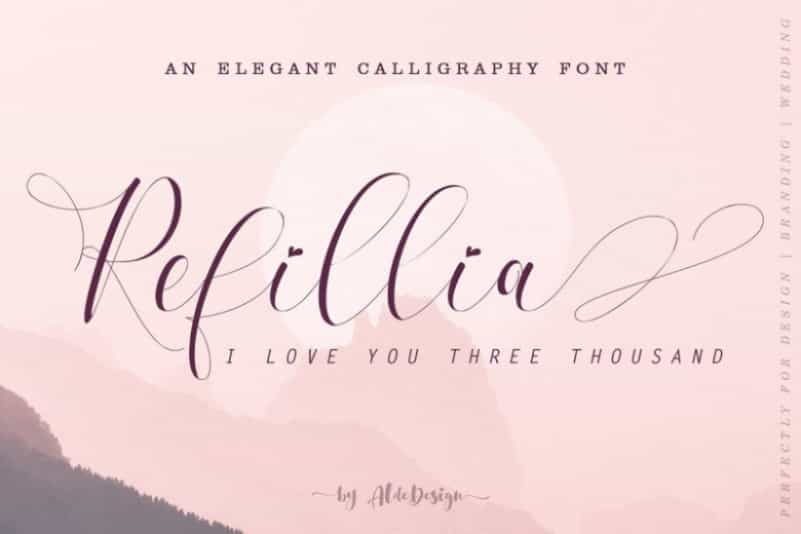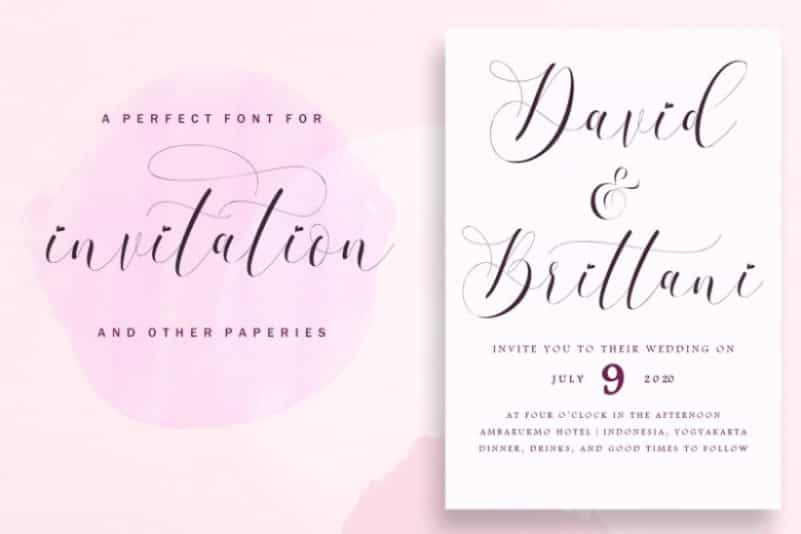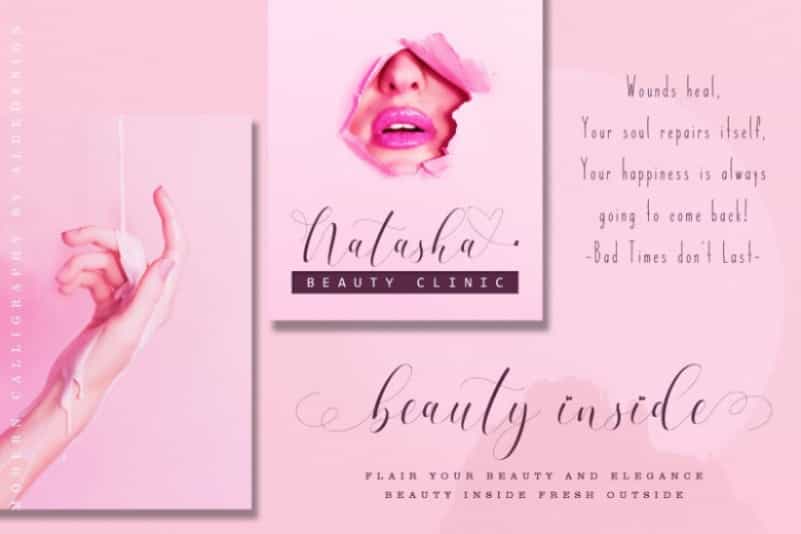
Introducing Refillia Font! Refillia Calligraphy is a cool calligraphic font that has a different baseline, smooth line and modern with the depth love. Those of you who need a touch of love and modernity for your designs or branding, it can be used for various purposes like headings, wedding, invitation, signature, logos etc.